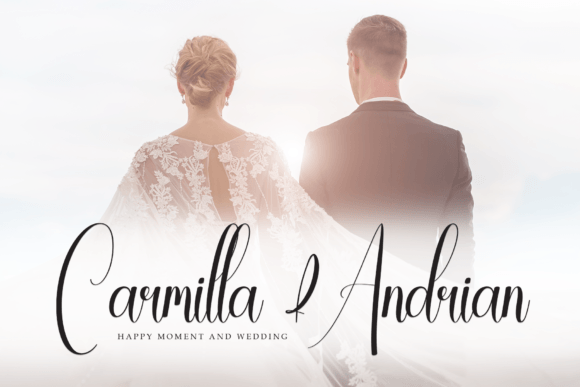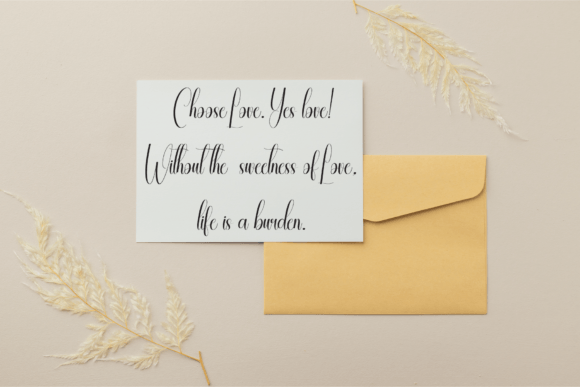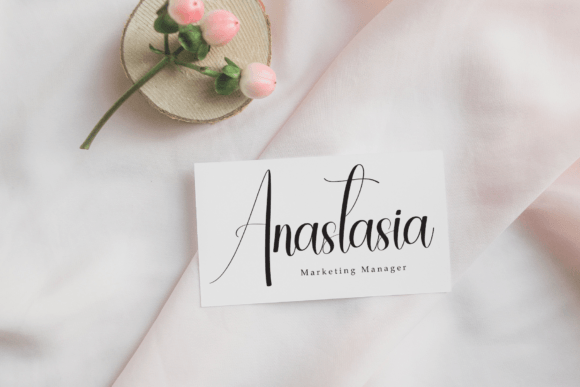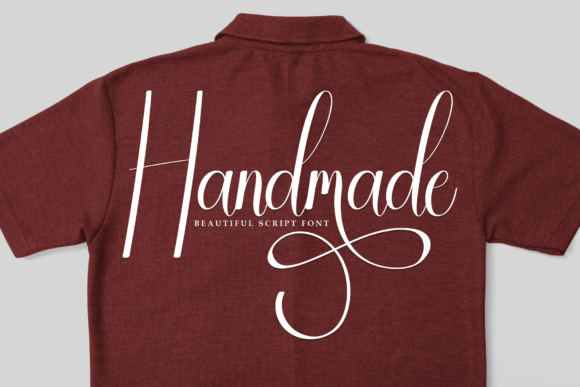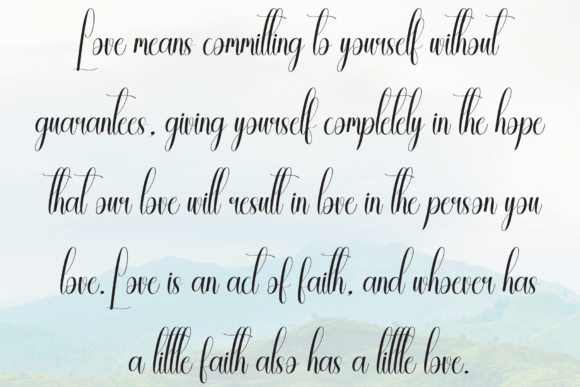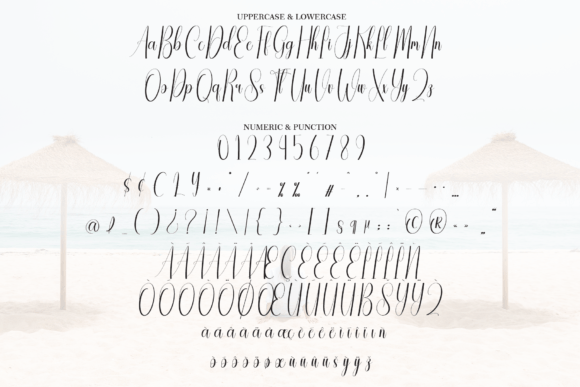
Introduction to Seacoast Font
Seacoast is a sweet and friendly handwritten script font.
Cute and fun, this font is ideal for writing wedding invitations, cards, or any other design that might need a fun touch .
Key Features of Seacoast Font